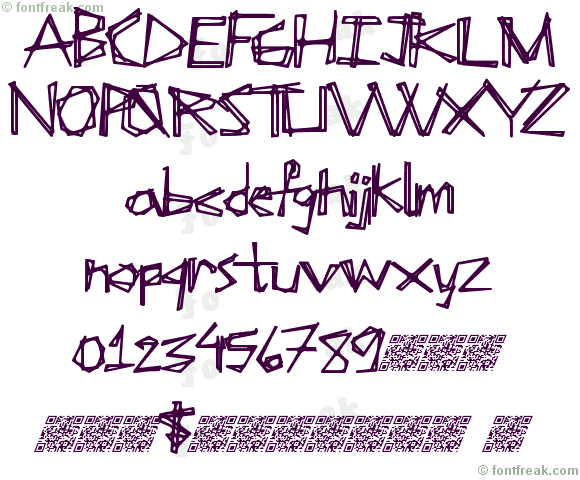
SoupKitchen
About SoupKitchen
The SoupKitchen font by Xerographer Fonts is a distinctive display typeface that captures a playful yet artistic essence. Its visual style is characterized by a handmade, slightly irregular design, conveying a sense of spontaneity and creativity. The strokes are uneven, giving the font a lively, dynamic feel that stands out in any application. The overall spacing is open, allowing each letter to breathe, which enhances legibility while maintaining a unique character. This font's decorative elements evoke a casual, informal vibe, making it suitable for various creative uses.
The SoupKitchen font is particularly well-suited for restaurant menus, where its whimsical nature can attract diners and convey a sense of warmth and friendliness. It also works wonderfully for children's book covers, allowing illustrations and text to harmonize with its charming aesthetic. Additionally, the font can be an excellent choice for event flyers and posters, lending a distinctive touch that draws attention. Graphic designers and small business owners will find this font invaluable when seeking to create engaging branding materials or promotional content that leaves a lasting impression.
What truly sets the SoupKitchen font apart is its ability to infuse personality into any design. Its quirky, handcrafted look resonates with audiences, making it an ideal choice for those seeking to convey warmth and creativity. For anyone in need of a fresh and engaging typeface, the SoupKitchen font free download is an excellent option to consider.